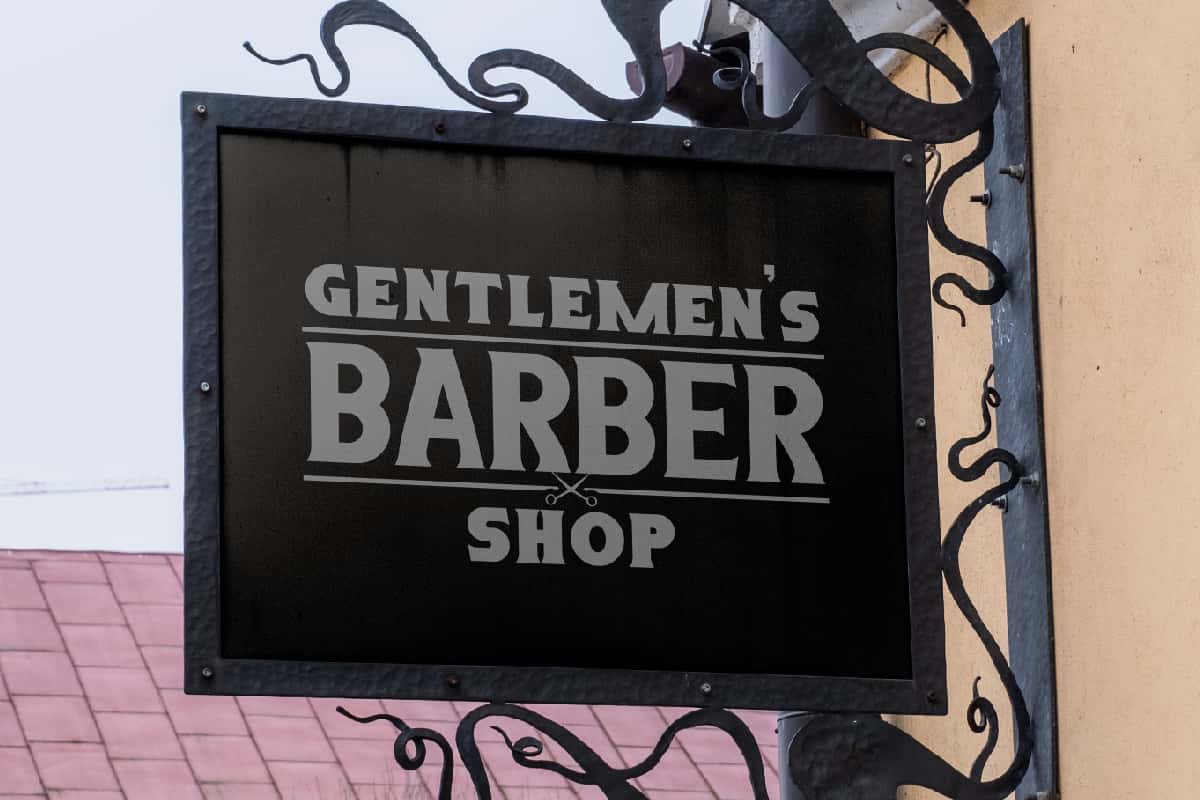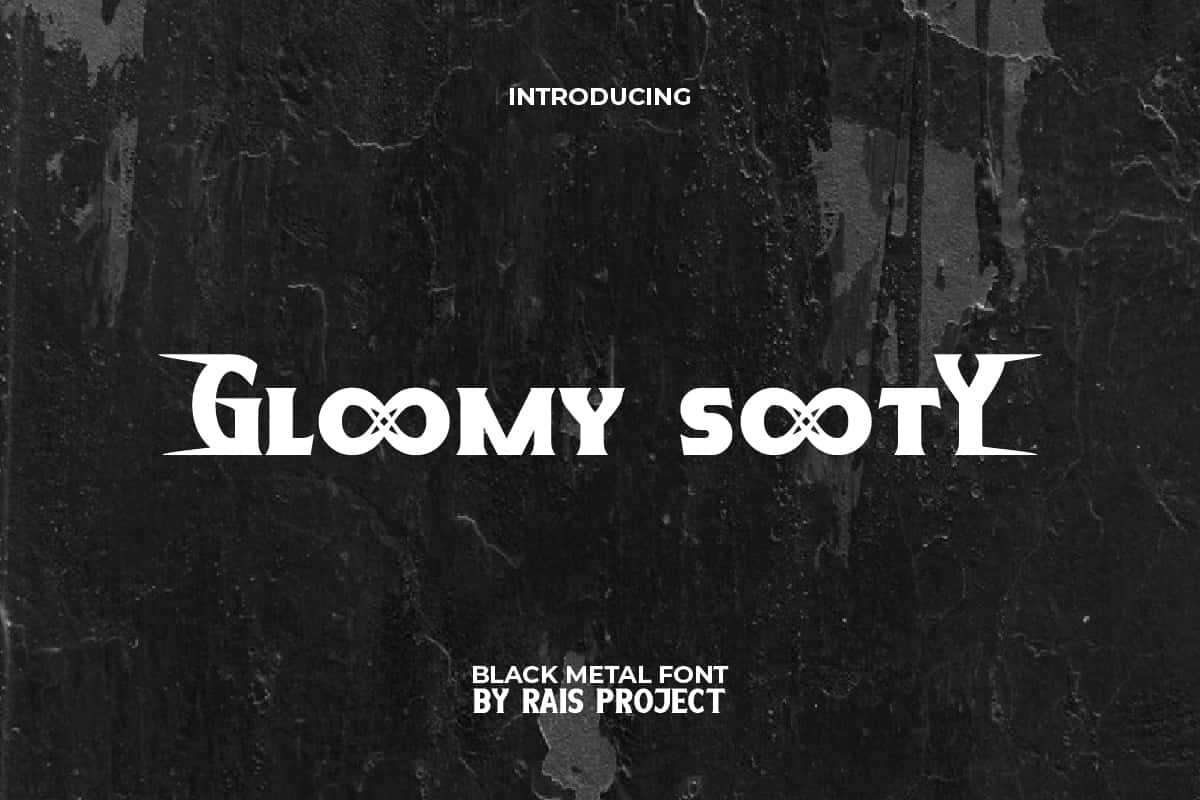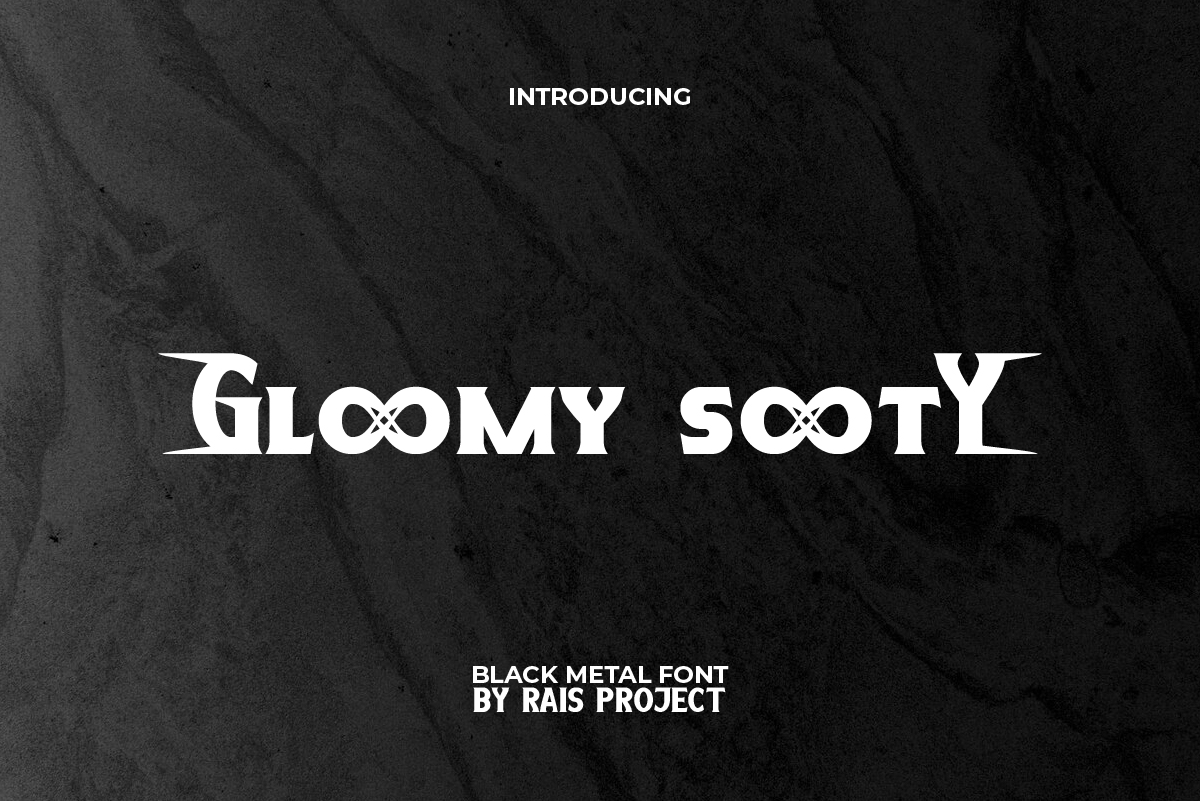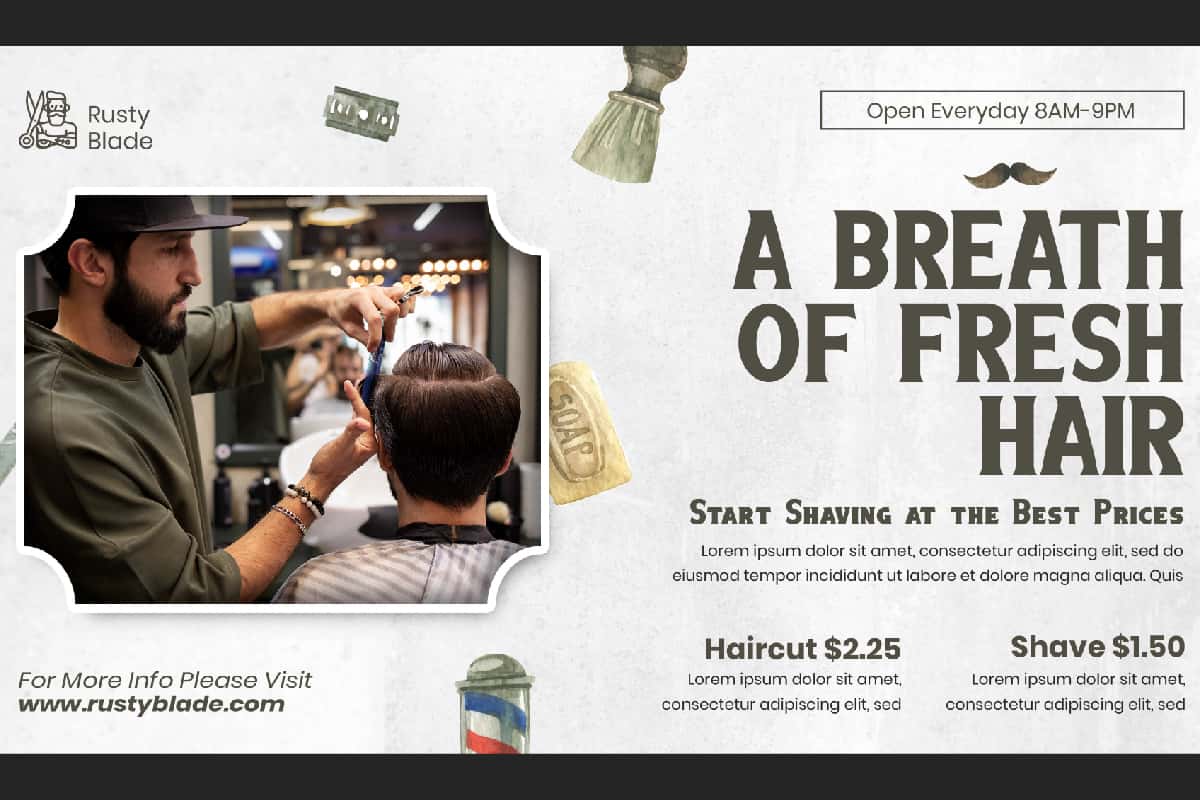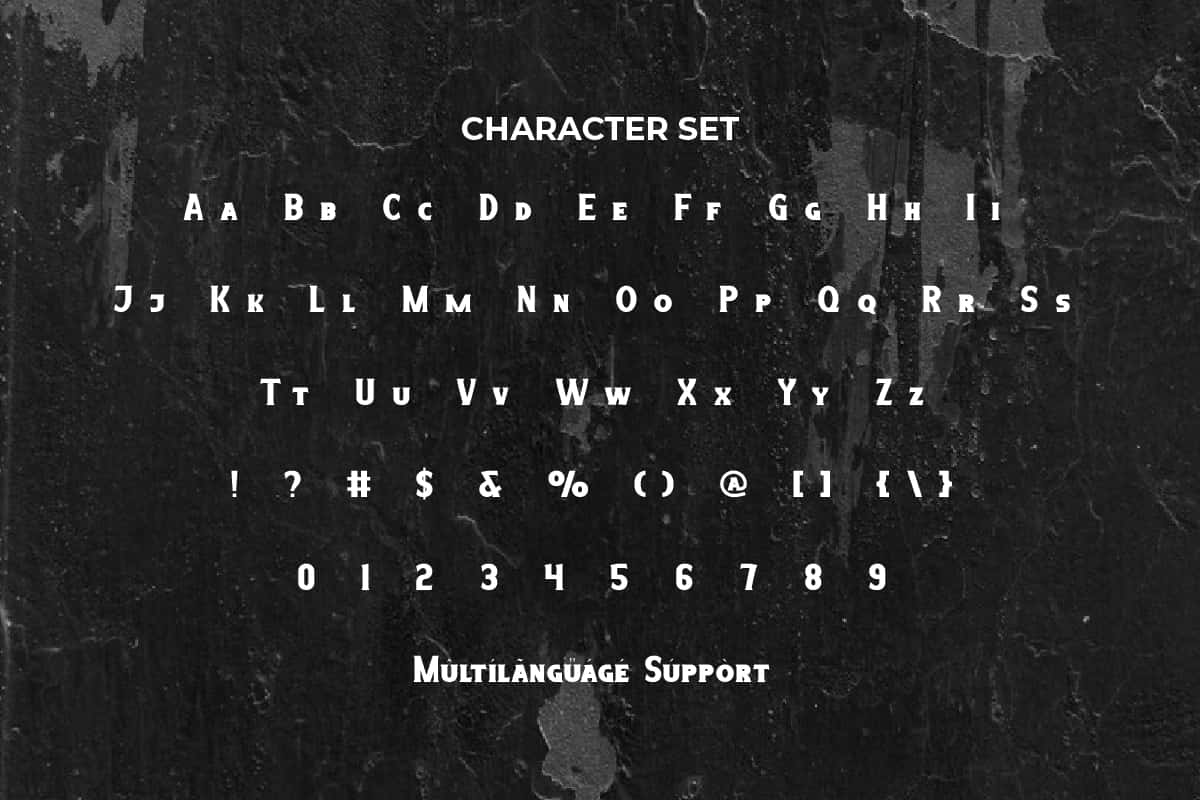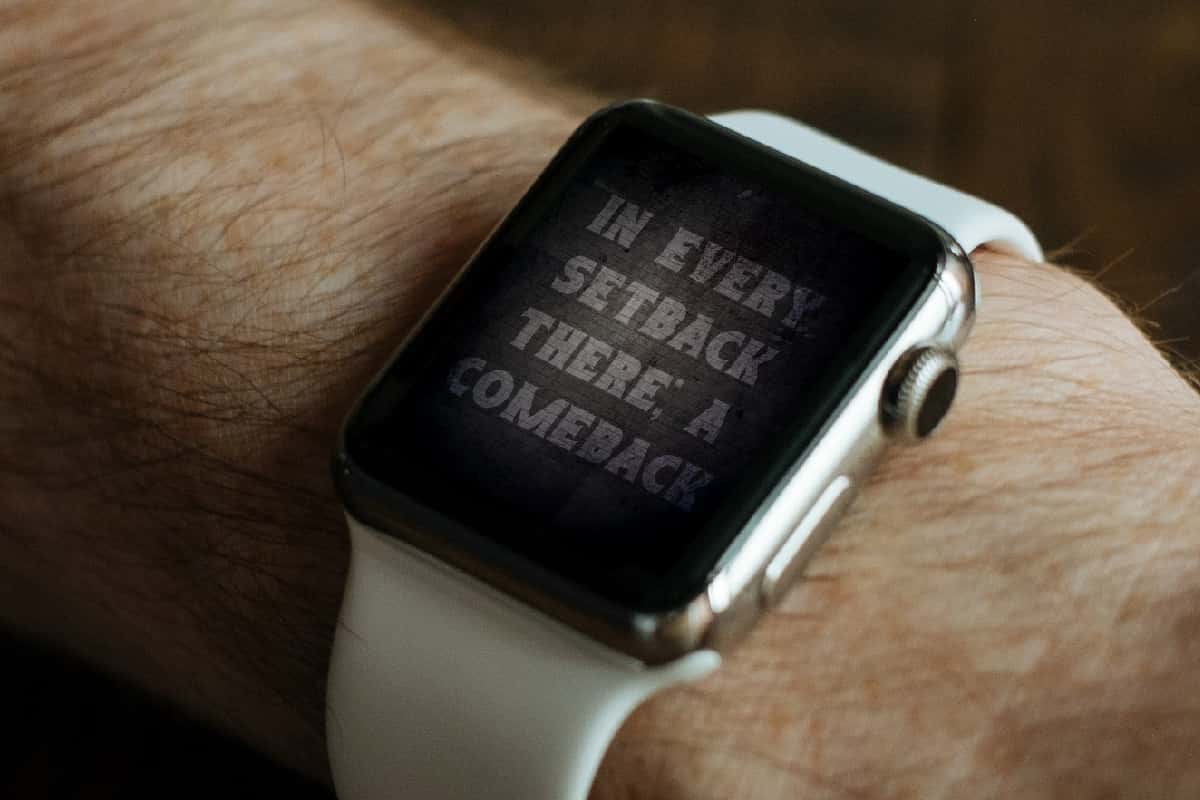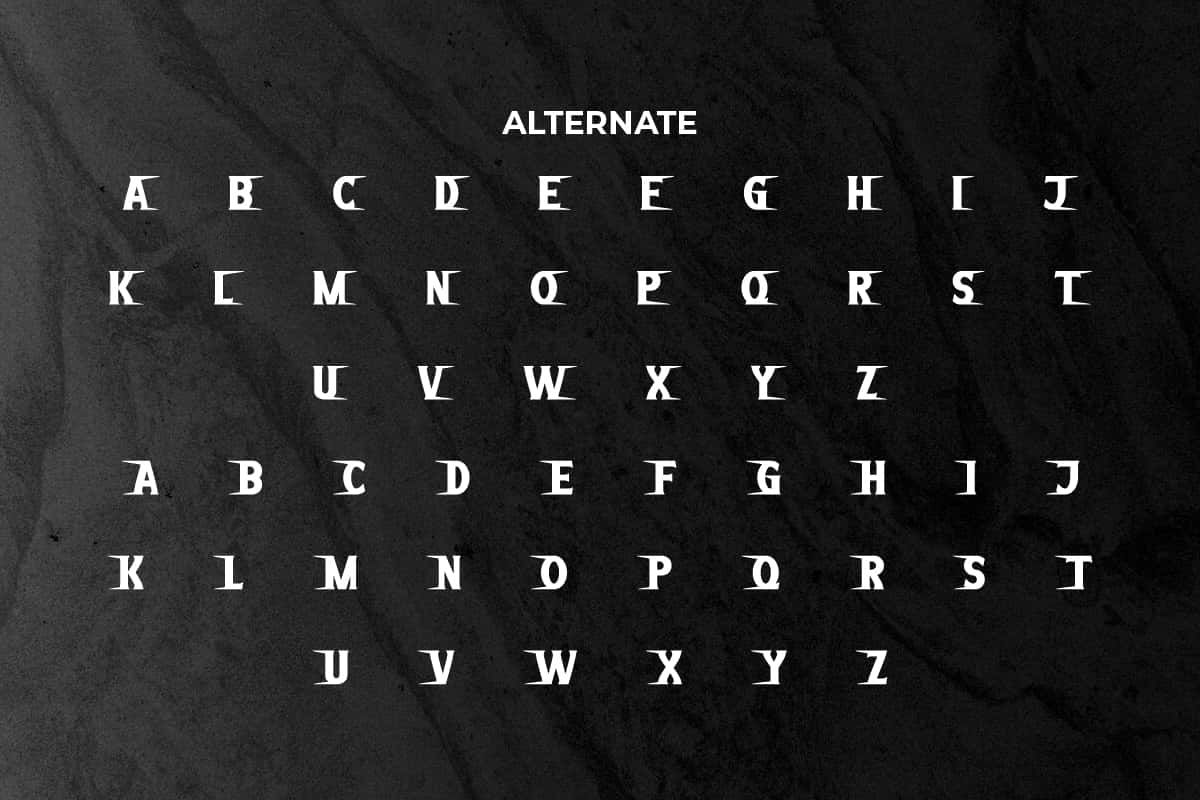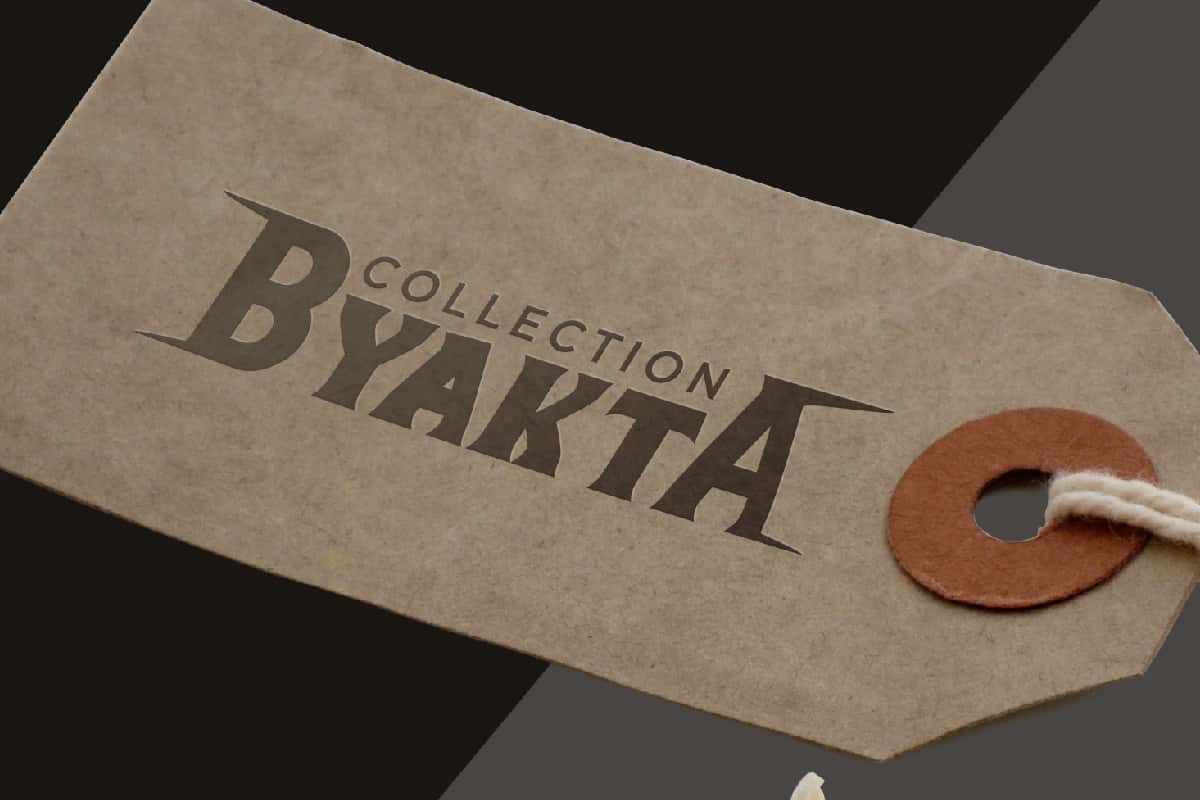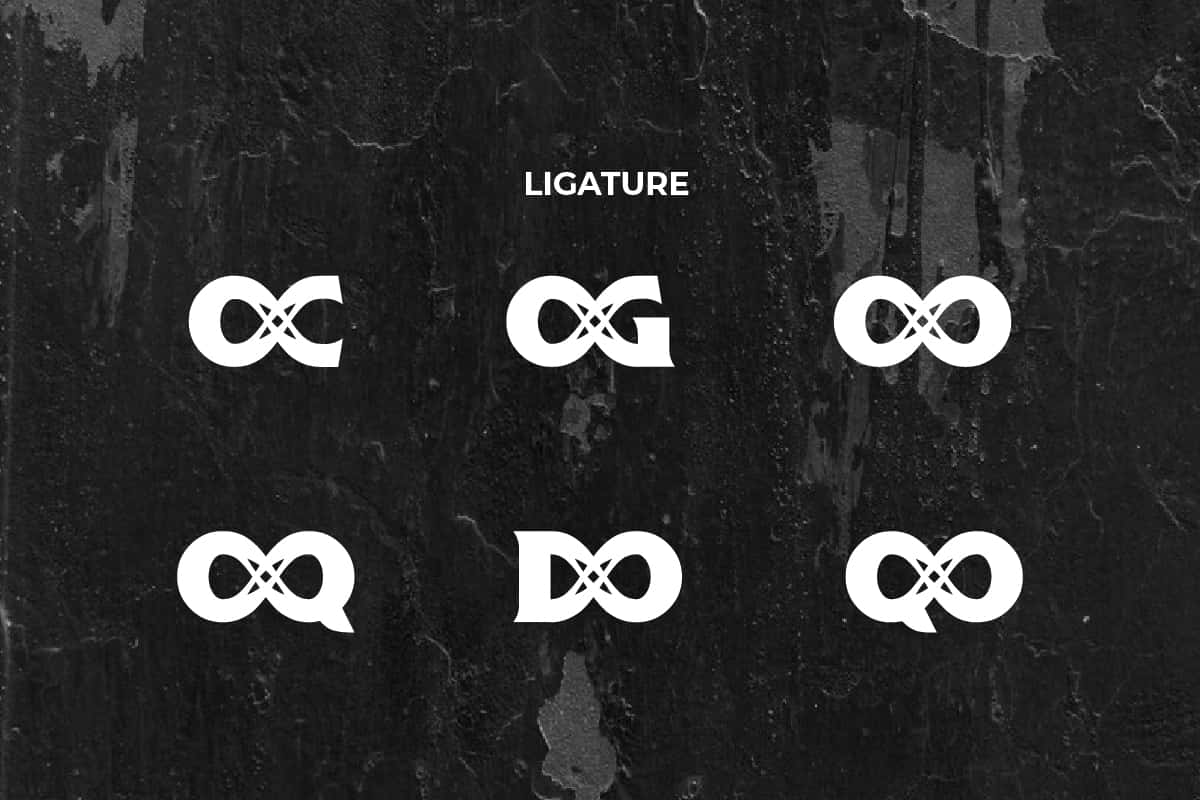
Gloomy Sooty Font
Gloomy Sooty Font is a decorative font with black metal style to make your design look more edgy!
Gloomy Sooty Font is a sharp and mysterious black metal font, by RaisProject. The uniqueness of this font lies in the variation of the letter with a bunch of unique combination, giving it a different appearance. It will be great for poster, label, signage, stationery, custom design, product packaging, quotes, brand image, advertisement, invitation, marketing material, website page, and more!
Gloomy Sooty Font includes a full set of ALL CAPS for Uppercase and Lowercase Letters, Numerals, and large range of Punctuation. This modern font also contain Ligature and Alternate characters that will be suitable for various industries, such as sports, automotive, fashion, game, barber shop, cafe, event or festival, photography, printing, publishing, etc.